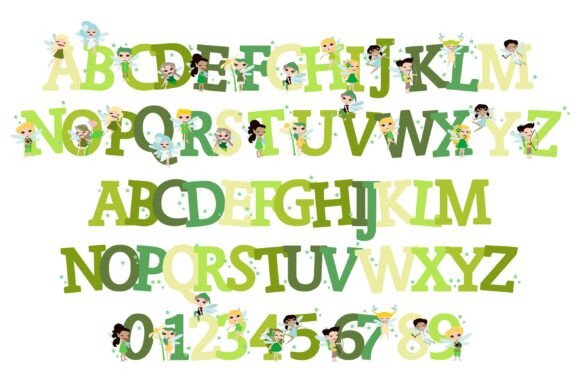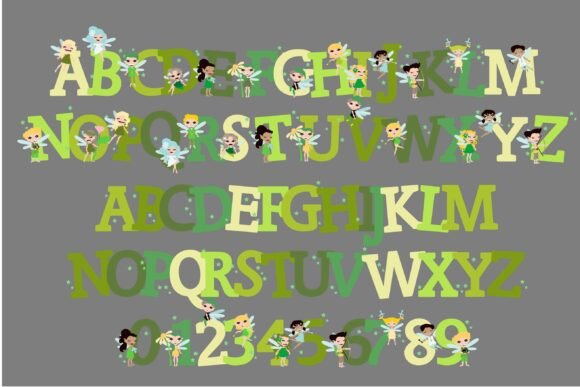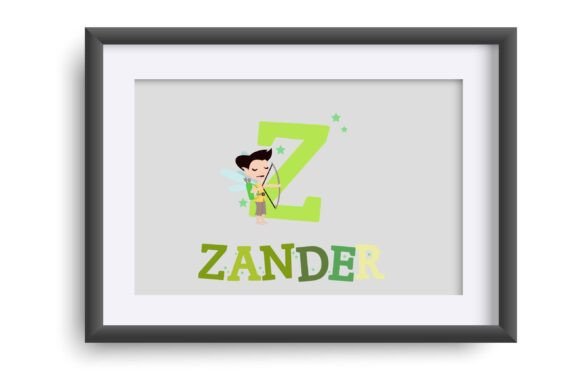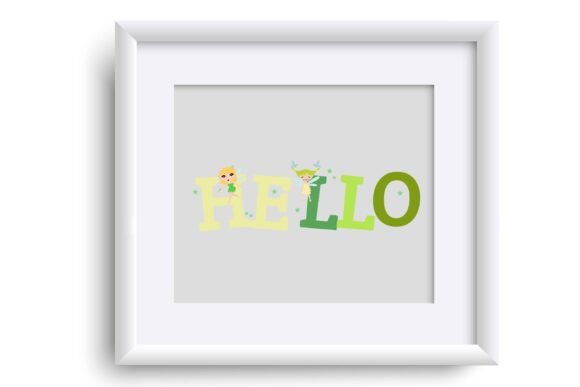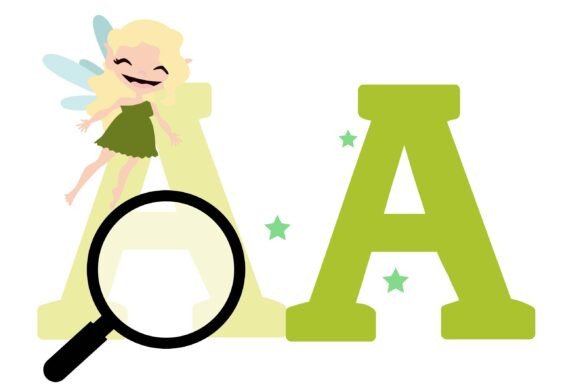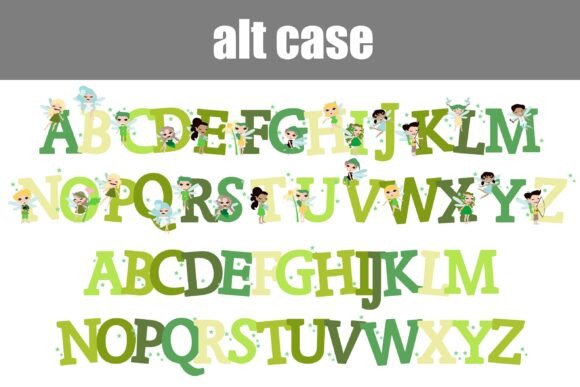
Introduction to Pixie Luck Font
Have you ever found yourself lost in the depths of your creative project, searching for the perfect font to bring your design to life? I know I have. One moment, you’re scrolling through endless font options, and the next, you stumble upon a hidden gem that makes your heart skip a beat. For me, that moment came when I discovered the enchanting Pixie Luck Font.
This whimsical font is more than just a pretty face – it’s a design resource that adds a touch of personality to any project. With its adorable pixies on the uppercase letters and a range of colors to choose from, the Pixie Luck Font is perfect for creating eye-catching titles, displays, and posters. And, with its compatibility with Silhouette Studio, you can take your designs to the next level.
Key Features of Pixie Luck Font
- Unique Whimsical Design: The Pixie Luck Font features a playful, hand-drawn design that adds a touch of magic to any creative project.
Honest Review: Pixie Luck Font
I recently had the opportunity to work with the Pixie Luck Font, and I must say it’s a lovely addition to any creative project. The font’s playful and whimsical design makes it perfect for adding a touch of magic to your designs.
One of the things that stood out to me about the Pixie Luck Font was its high quality and versatility. It’s available in a range of weights and styles, making it easy to use in a variety of design contexts.
Here are some of the things that work well about the Pixie Luck Font:
- ✨ High quality design with a unique and playful aesthetic
However, I did encounter some limitations while working with the Pixie Luck Font:
- ⚠️ Limited character set, which may not be suitable for longer blocks of text
- ⚠️ Not suitable for designs with complex typography or fine details
Overall, I was impressed with the Pixie Luck Font and would recommend it to designers looking for a high-quality, free font for their creative projects. However, be aware of its limitations and use it accordingly.
Pixie Luck Font
Tips for Getting the Most Out of Pixie Luck Font
To get the most out of the Pixie Luck Font, try experimenting with different font sizes, colors, and combinations. You can also use this font in conjunction with other design elements to create a unique and captivating visual effect.